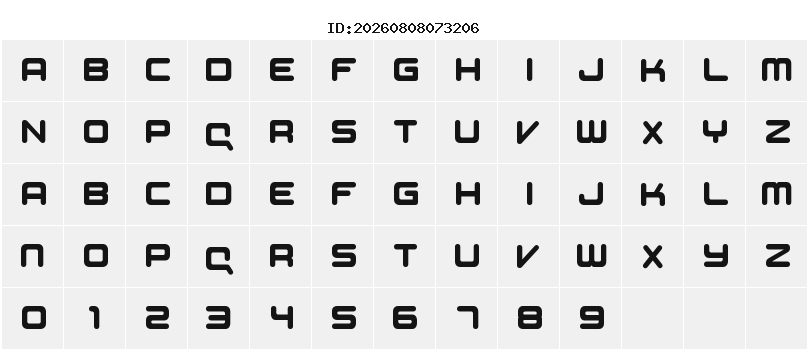
• Font Name: Presario
• Full Font Name: Presario
About Presario.ttf
Presario.ttf is a modern, elegant sans-serif font designed for ultimate readability and visual harmony. Perfect for branding, headlines, web design, and print materials.